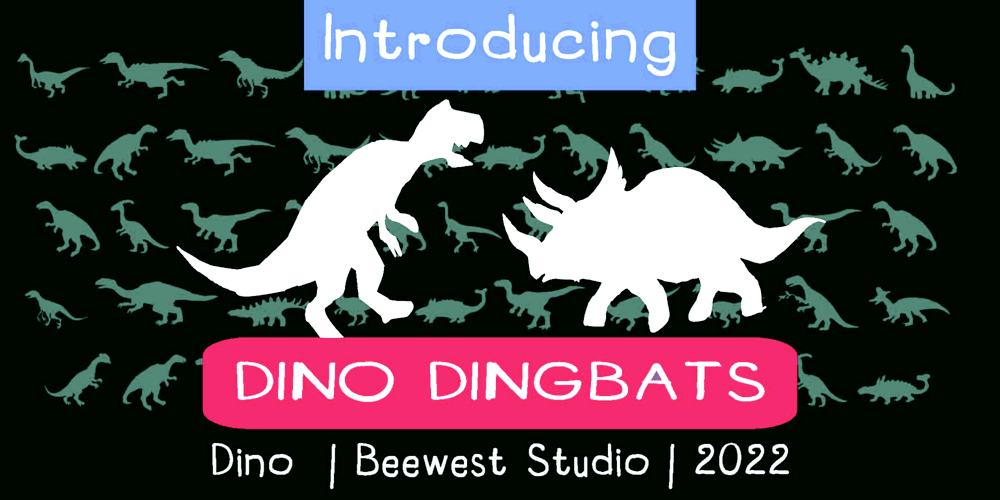
Dino Dingbats Font Family was designed by bsmbang wisudyantoro and published by Beewest Studio. Dino Dingbats contains 1 styles and family package options. Dino Dingbats Font is cute and adorable Dinosaurus dingbats font. Whether you’re using it for crafts, digital design, presentations, or making greeting cards, this font has the potential to become your favorite go-to font, no matter the occasion!.